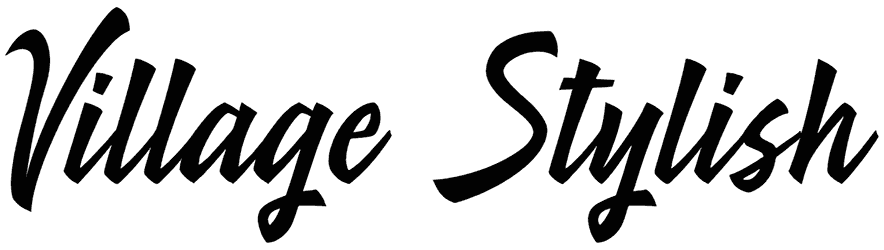
Village Stylish Font
A script font, Village Stylish, is characterized by its flowing lines, connected shapes, and simple embellishments. When it comes to design, branding, and digital products, Village Stylish is at the top of its game.